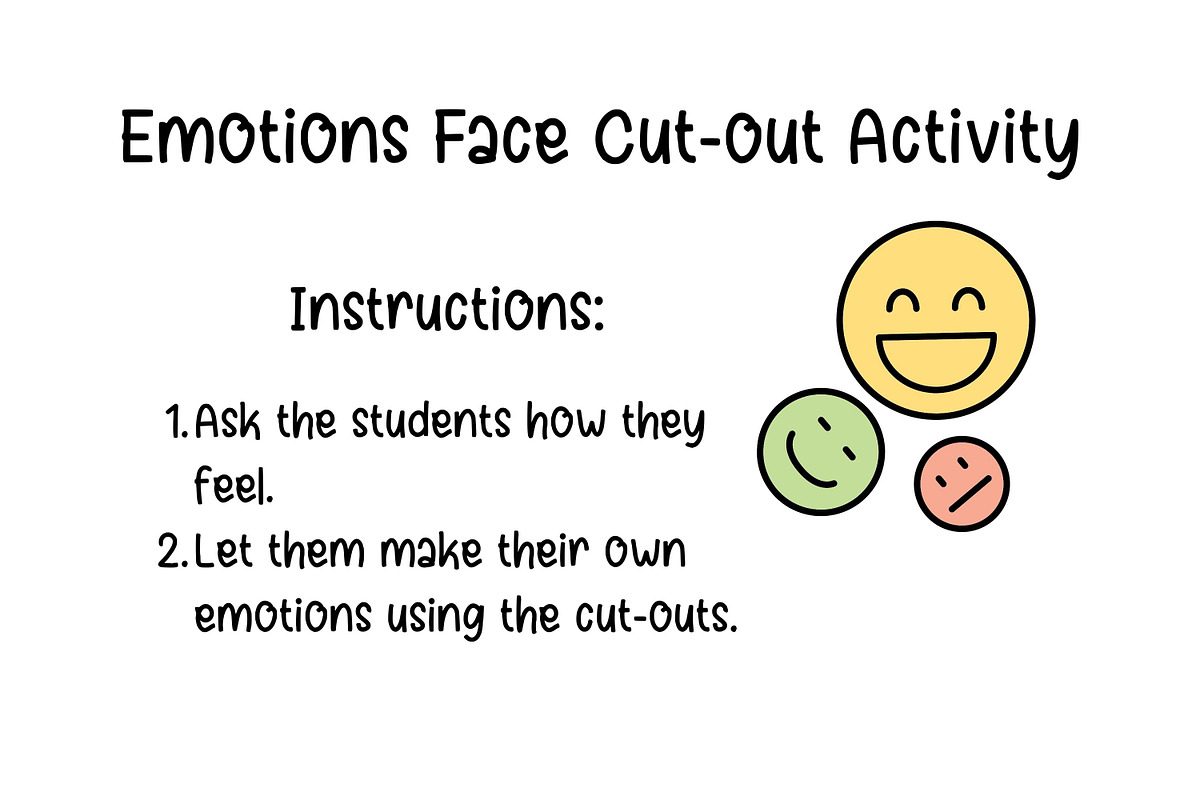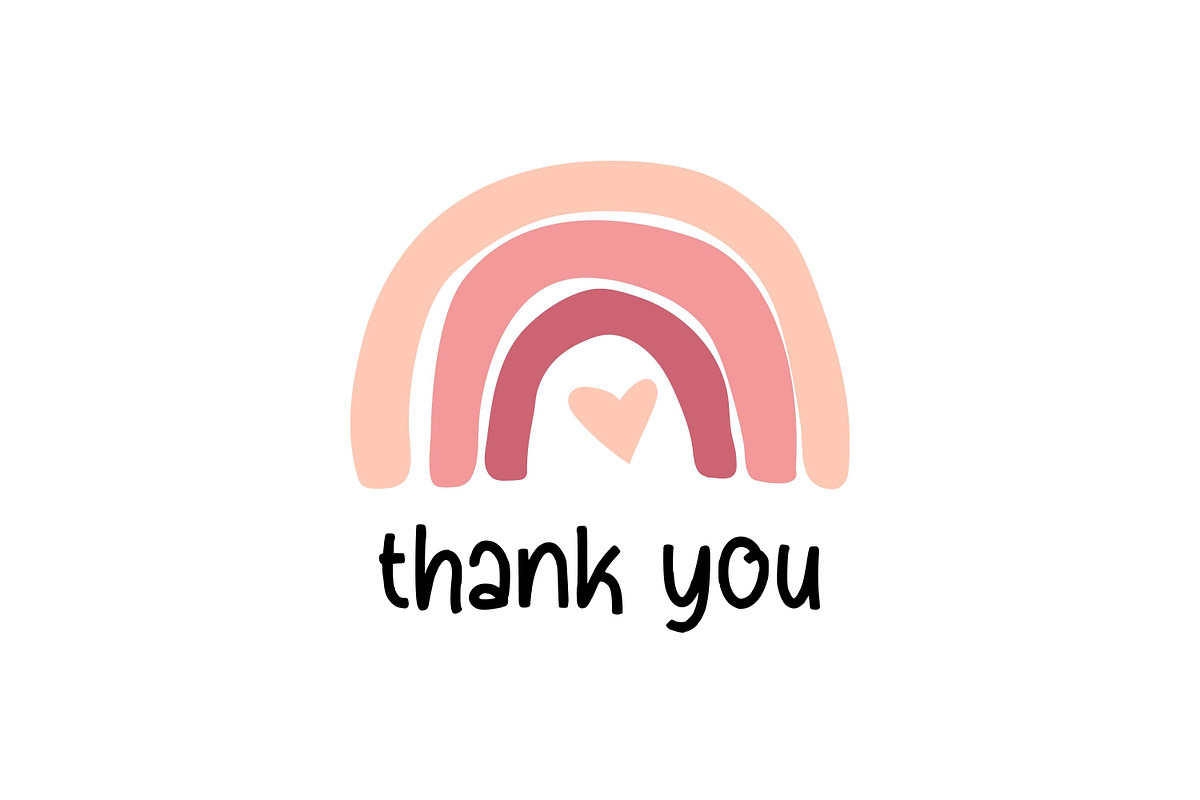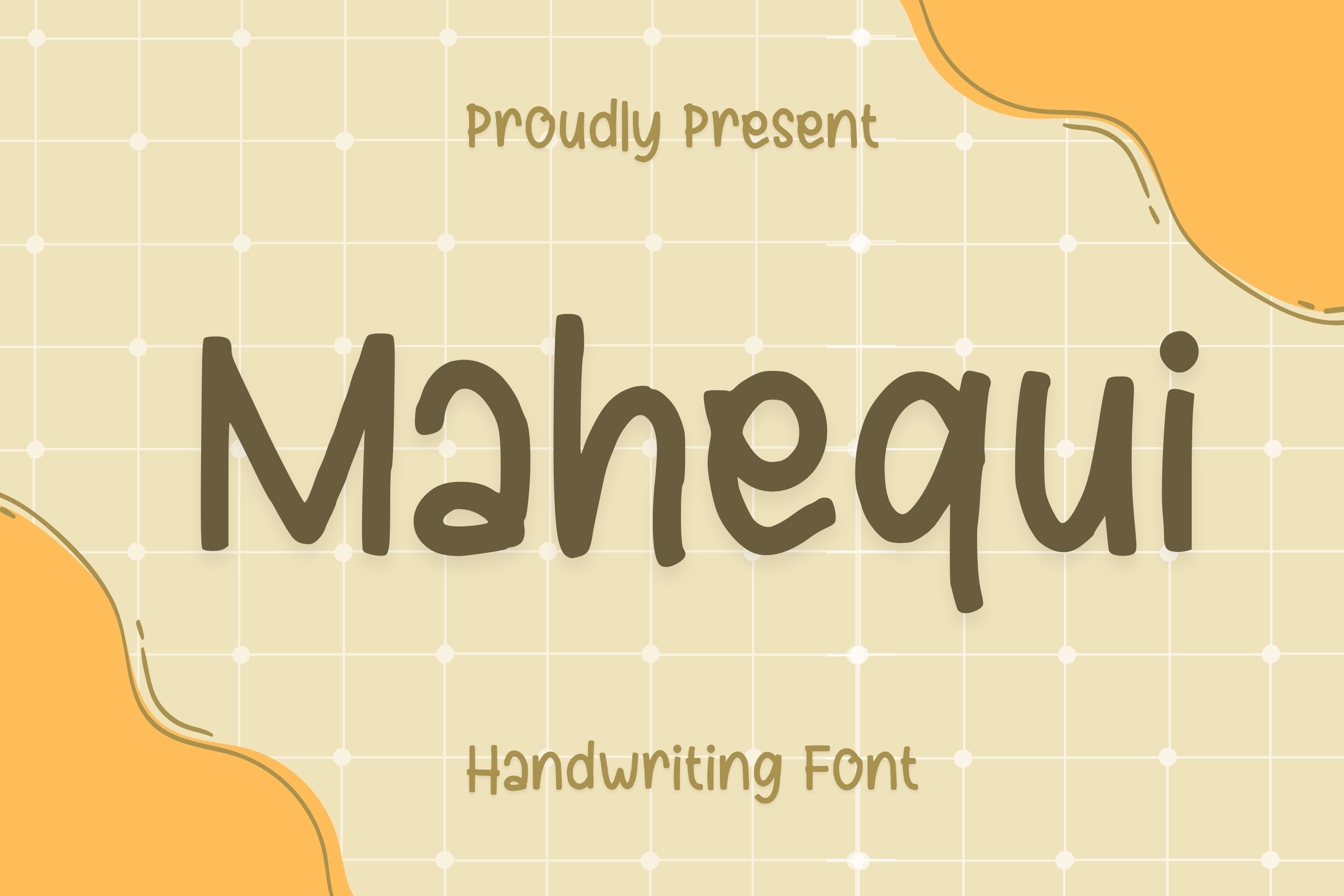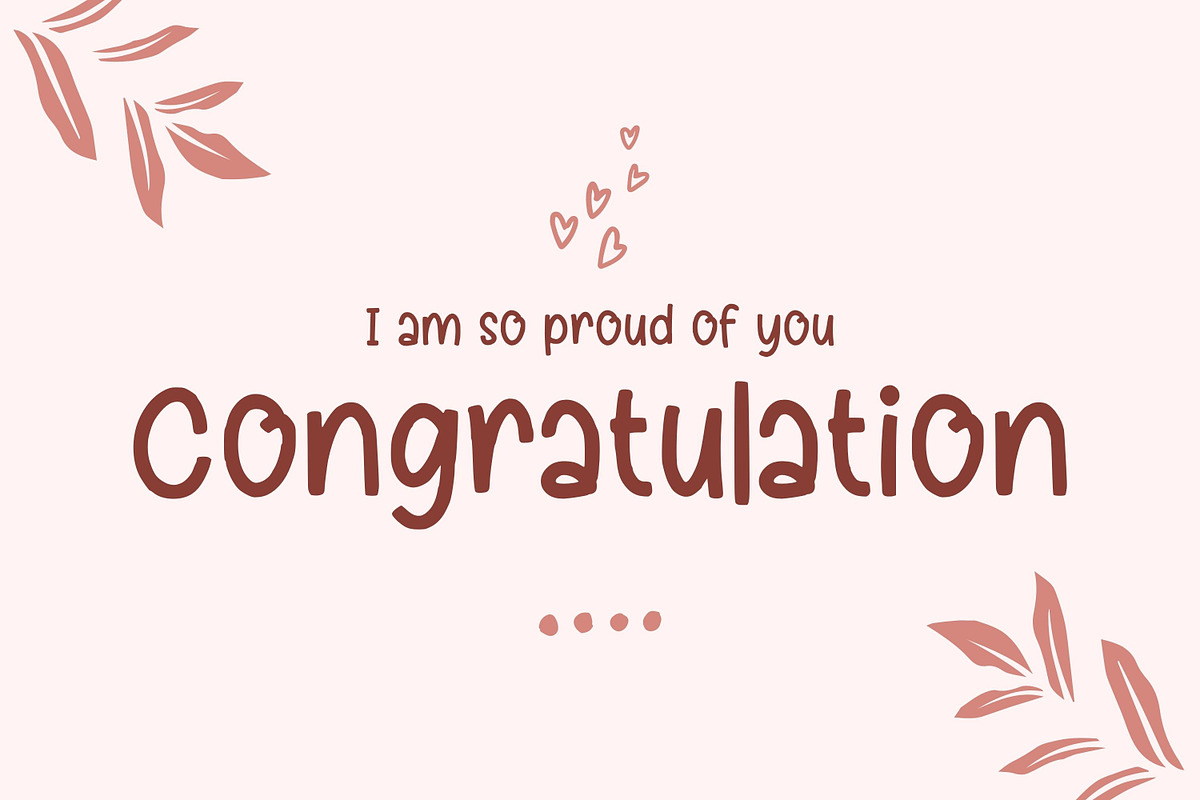
Mahequi Bold Font
Mahequi is a handwritten typeface. Perfect for display, mockup, posters, quotes, branding, business card, greeting card, crafting needs, logo, logotype, badges, emblem, header, tittle, merchandise, packaging, and many more.
Character set A-z
Support multilanguage glyphs